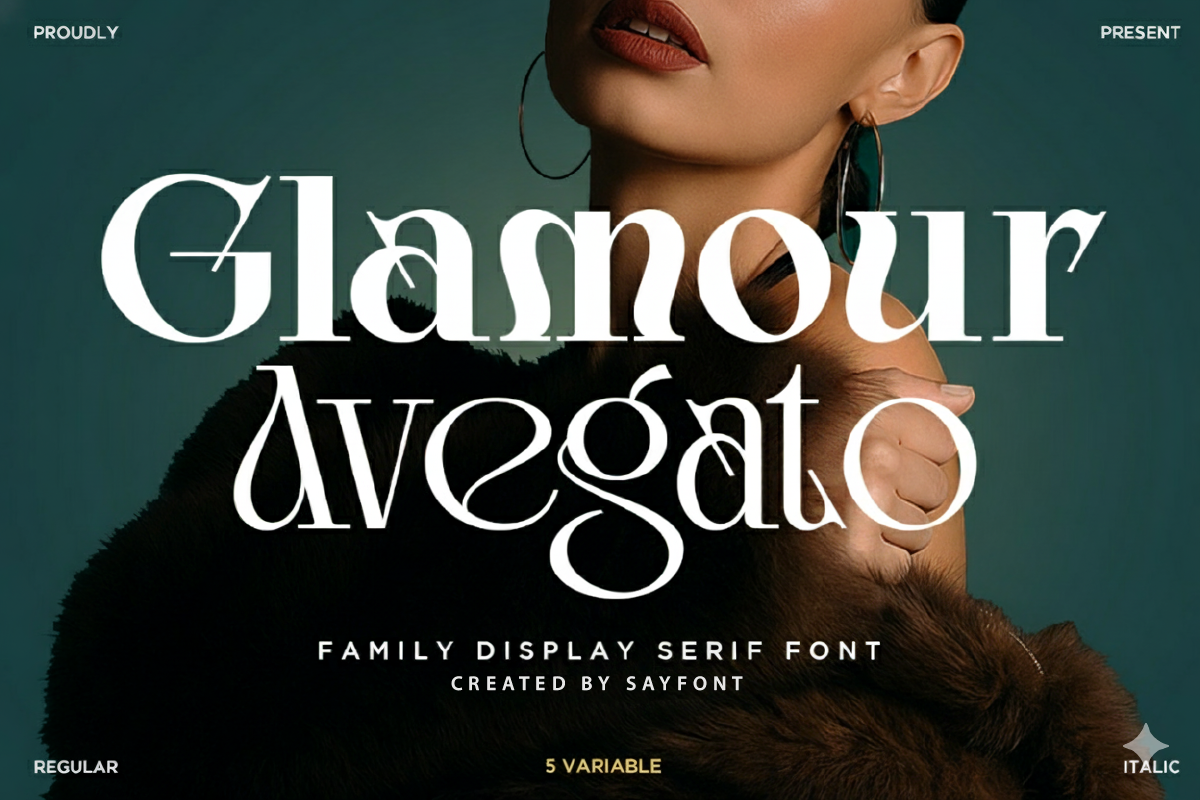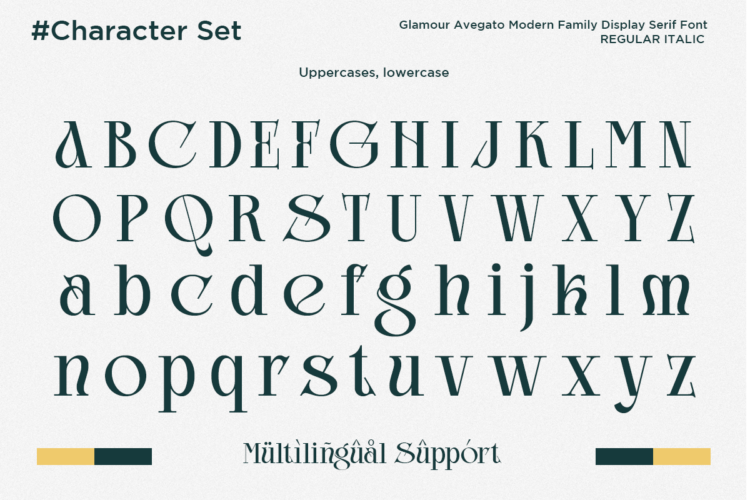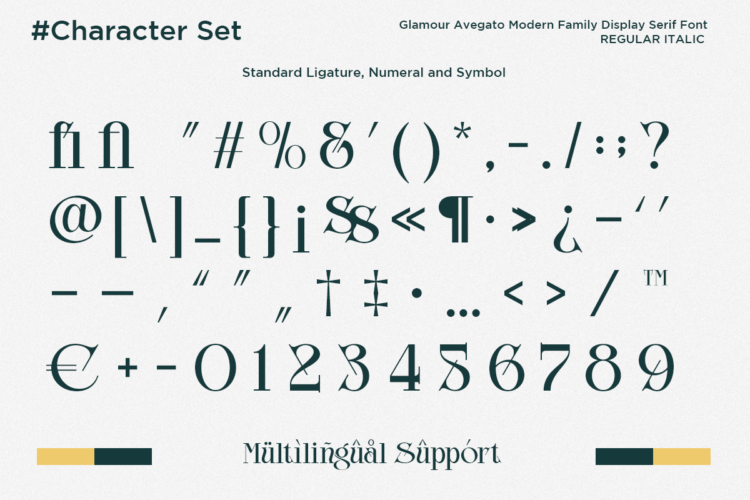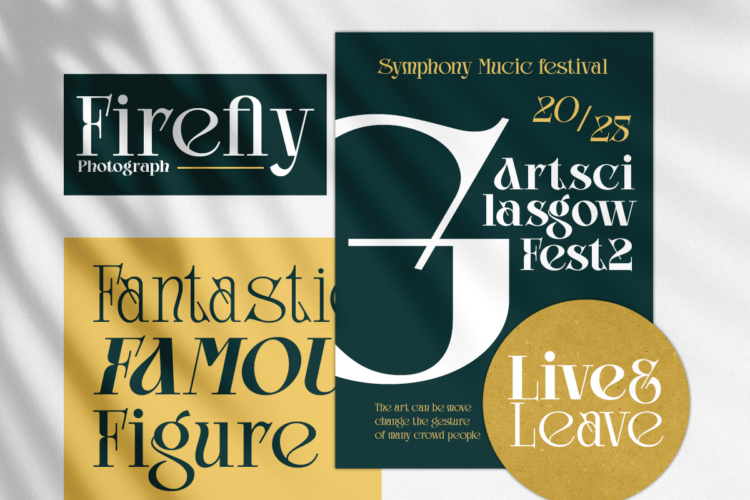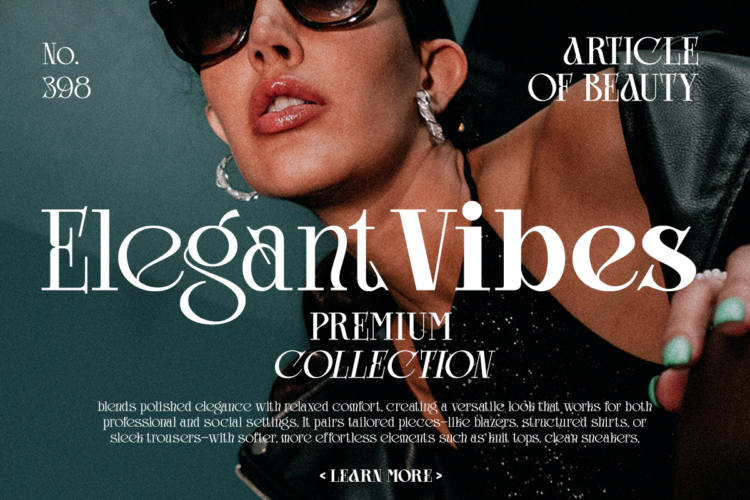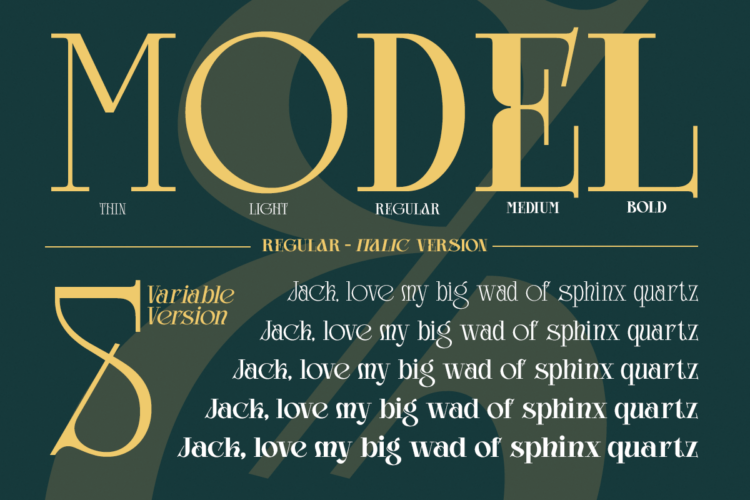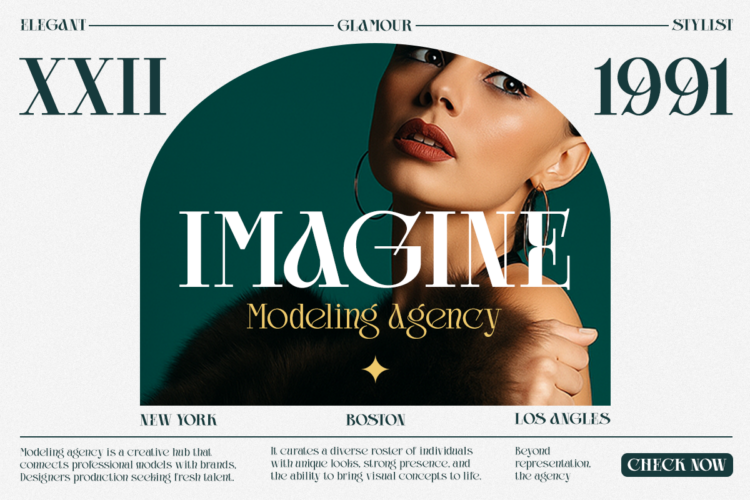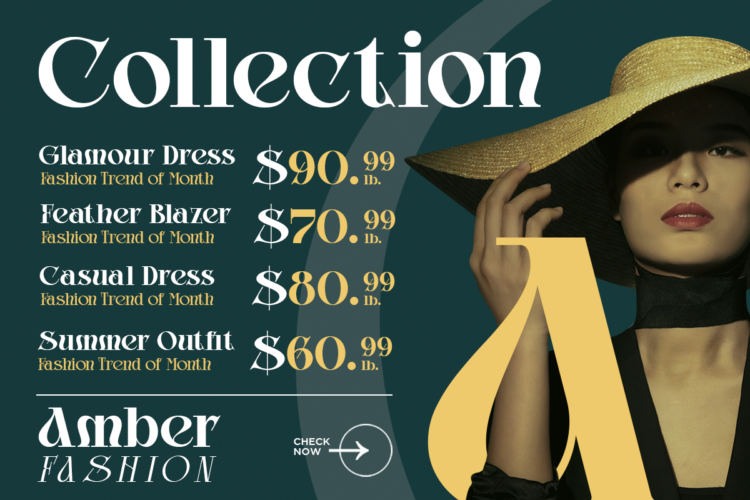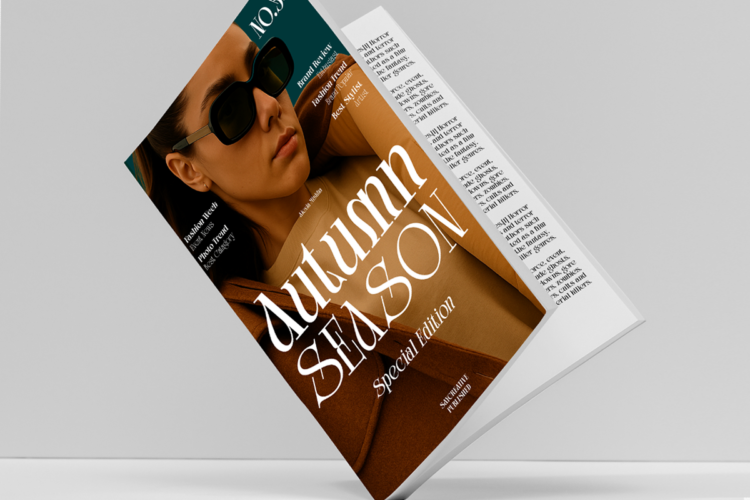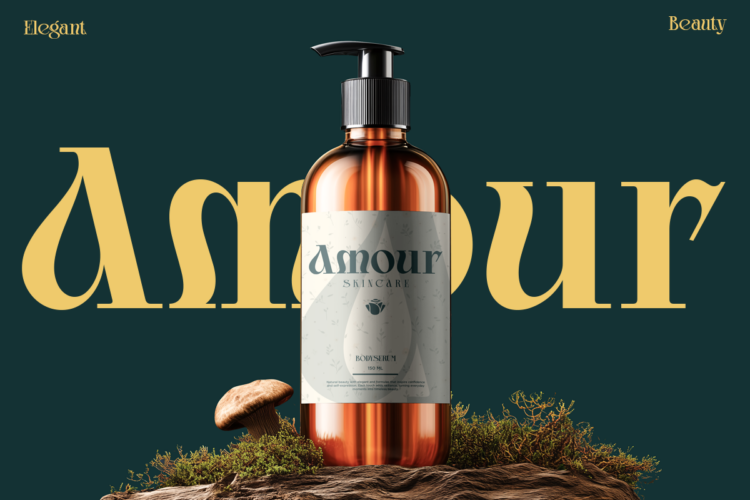
Glamour Avegato – Variable Display Font
Glamour Avegato is an elegant family display serif font designed with a luxurious blend of modern curves and classic high-fashion details. Featuring refined ligatures, expressive contrast, and artistic letterforms, this typeface brings a premium aesthetic to any project. Ideal for branding, editorial layouts, packaging, logos, social media, and beauty or fashion-focused designs. With its sophisticated personality and versatile style variations, Glamour Avegato adds an exclusive, glamorous touch that elevates every visual composition.
– 5 Variable Weights
– Regular Style
– Italic Style